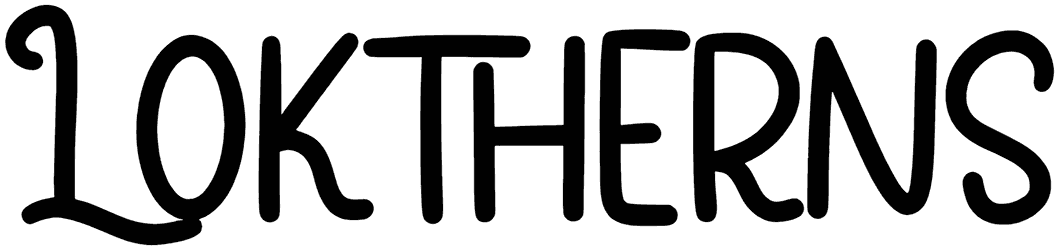
Loktherns Font
There is no doubt that Loktherns can be admired by all onlookers with different preferences because of the artistic design of each letter that expresses aesthetic and natural emotions. This script font is available with only capital letters to elaborate invitations, fashion brands, logotypes, and anything else with its rhetorical inspiration.